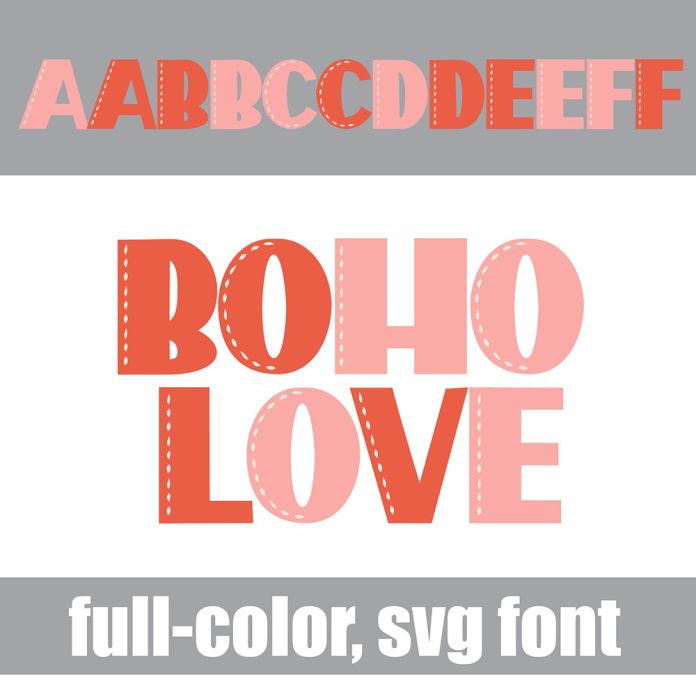
This chunky, sans serif is in a Valentines color palette with side stitches throughout. There is an alt case with an additional color of each letter. This font works best for titles, displays, posters and more. Please note color fonts will show as black in non compatible programs. This font type is compatible with Silhouette Studio.